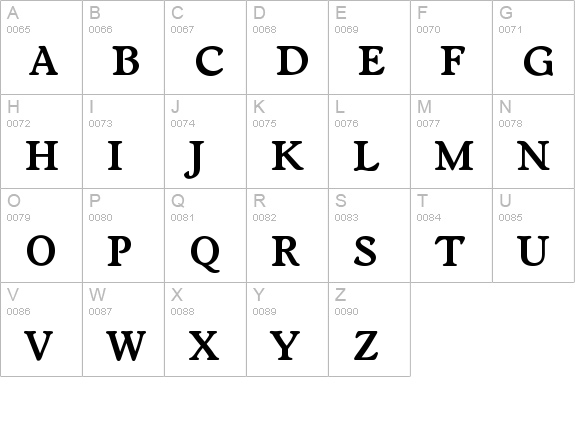
Worchester-DemiBold Font Details
Worchester-DemiBold is a sub-bold, structured variant in the Worchester typeface family \xE2\x80\x94 well suited to sub-headlines and emphasised passages.